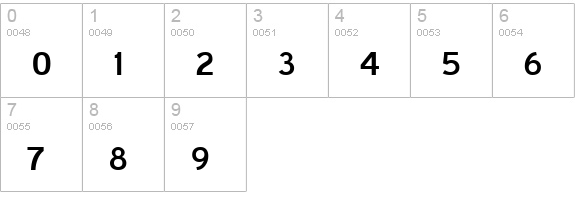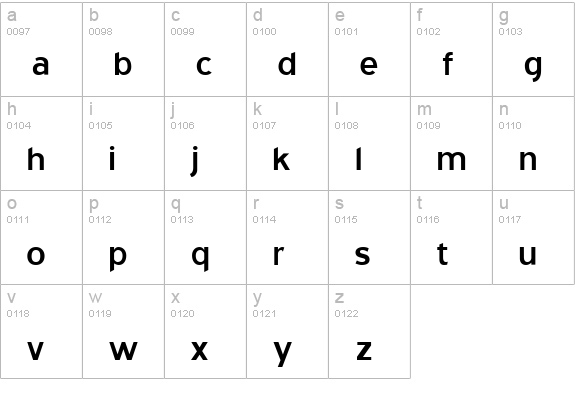
Blue Highway Font Details
Blue Highway font is a sleek and modern typeface that exudes a sense of sophistication and professionalism. Its clean lines and geometric shapes make it perfect for a wide range of design projects, from branding to editorial layouts. With its versatile design, Blue Highway can easily adapt to different styles and themes, adding a touch of elegance to any project. What sets Blue Highway apart is not just its aesthetic appeal, but also its availability. This fantastic font is freely available to download at FontsMarket.com, making it accessible to designers of all levels. Whether you're working on a personal project or a professional assignment, Blue Highway is a reliable choice that will elevate your design to the next level. Download it today and discover the endless possibilities of this exceptional typeface.